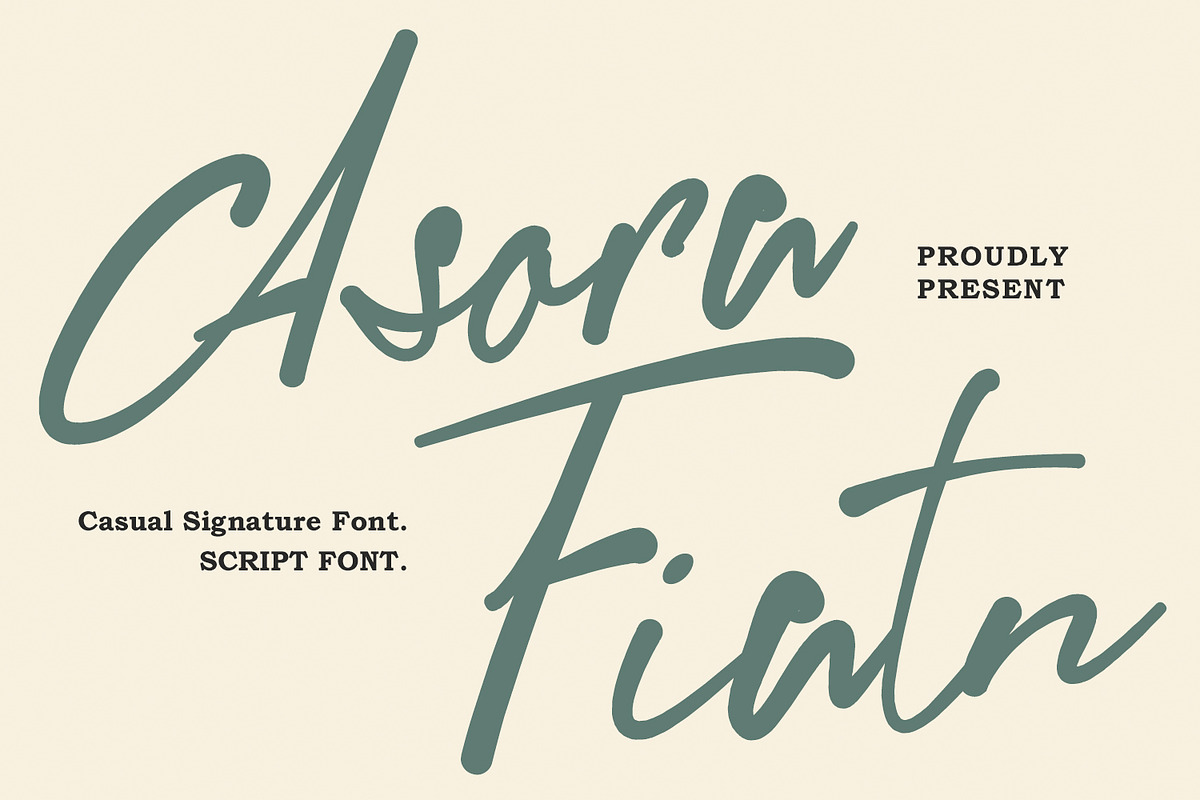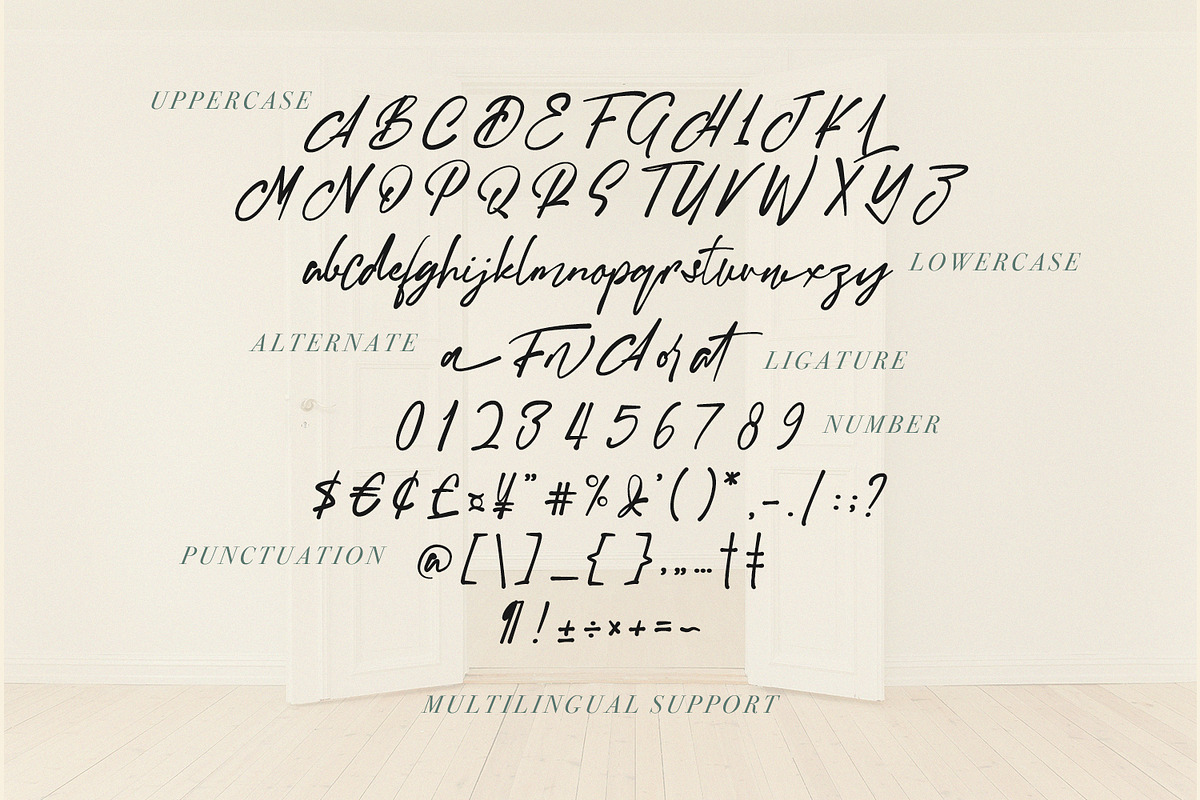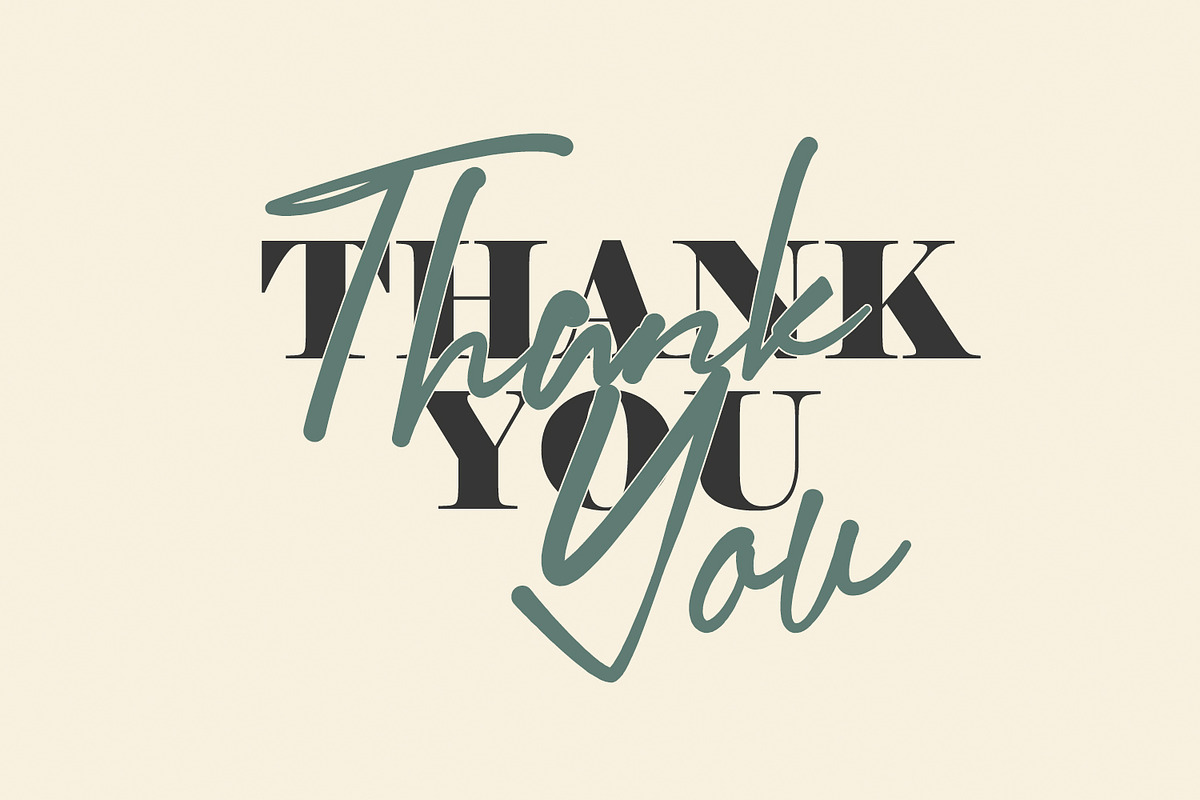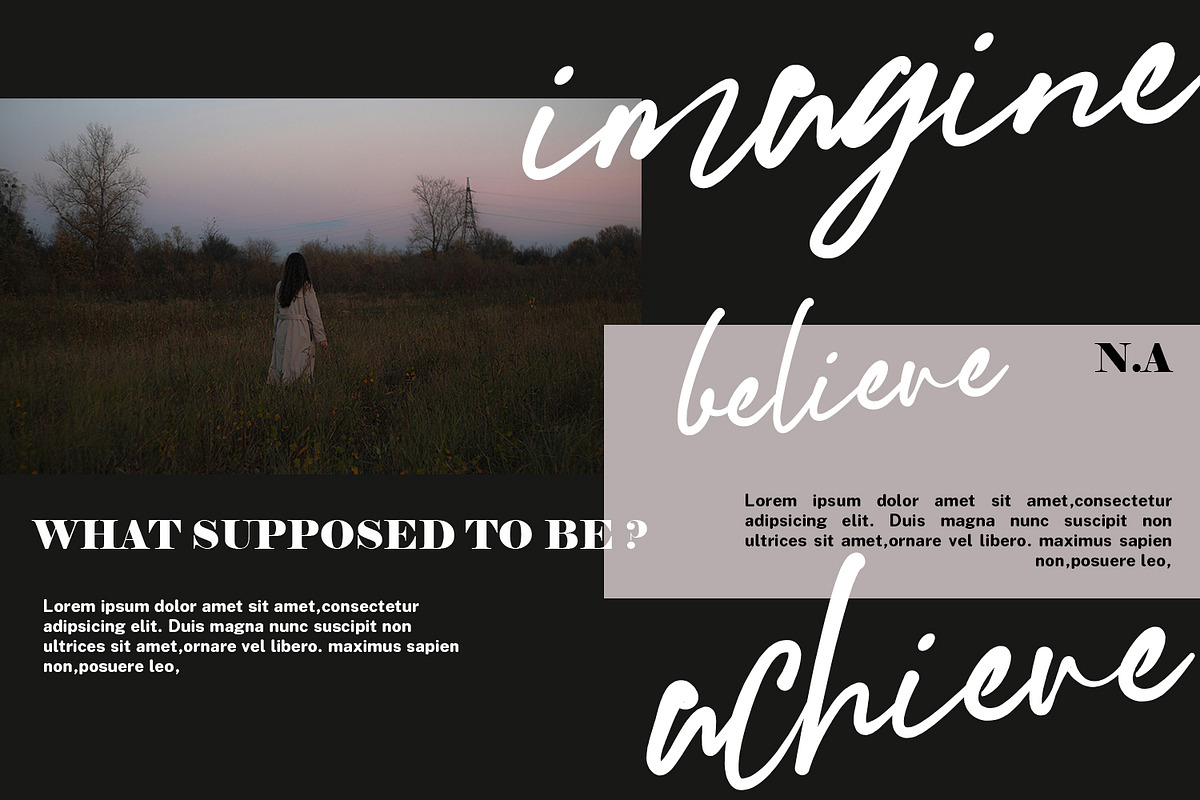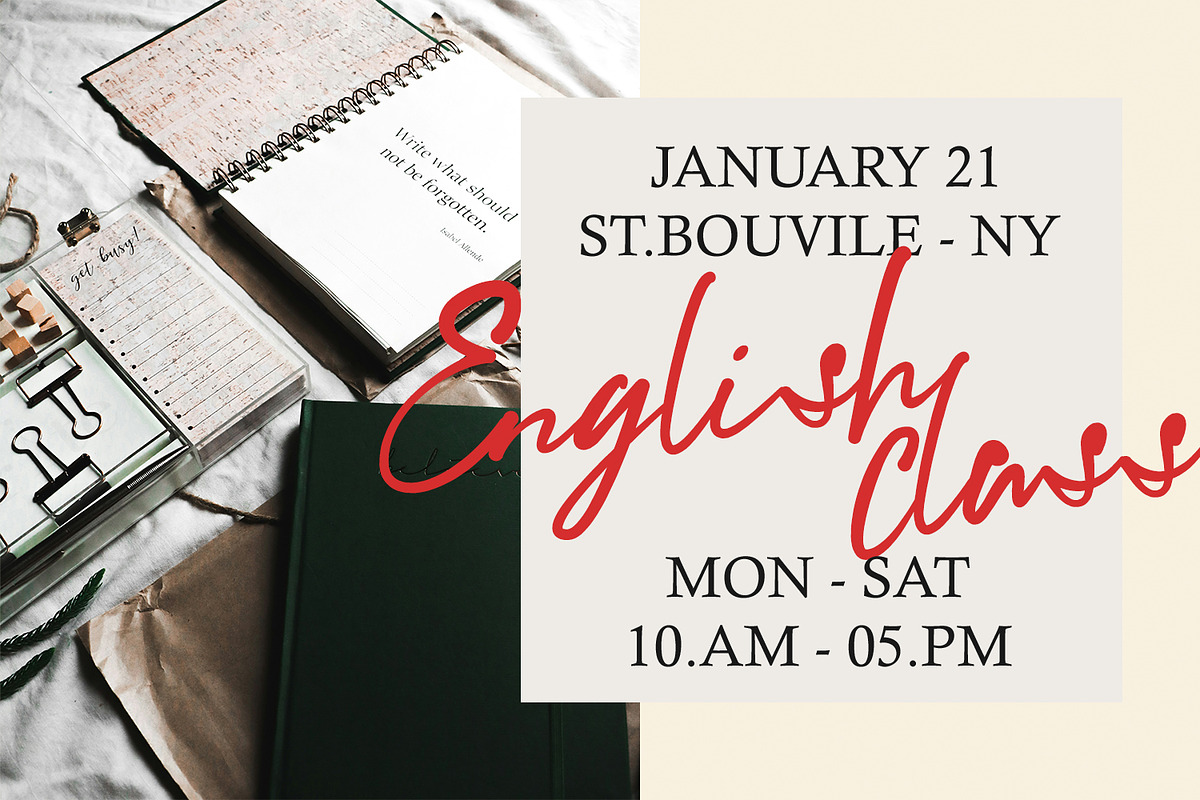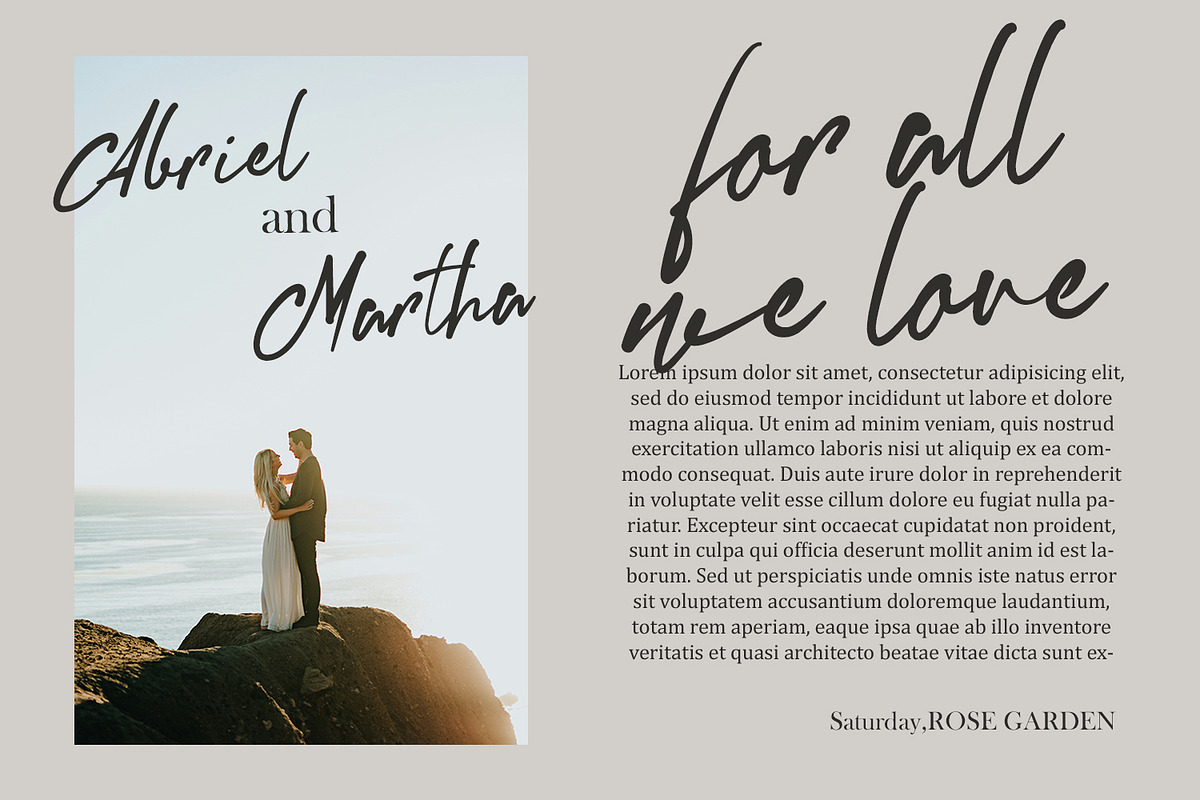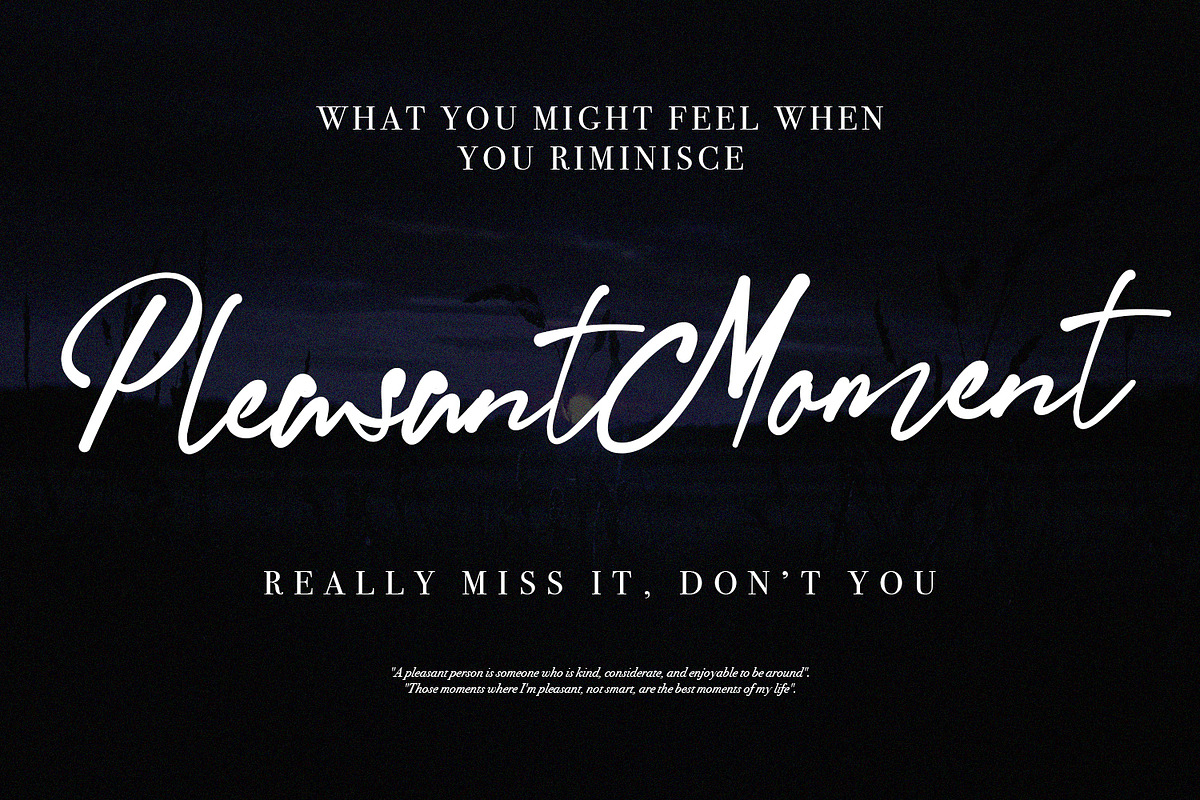
Asora Fiatn Casual Signature Script
Give your designs an authentic brush handcrafted feel. “Asora Fiatn Casual Signature Script Font” is perfectly suited to signature, stationery, logo, typography quotes, website header, branding and more.